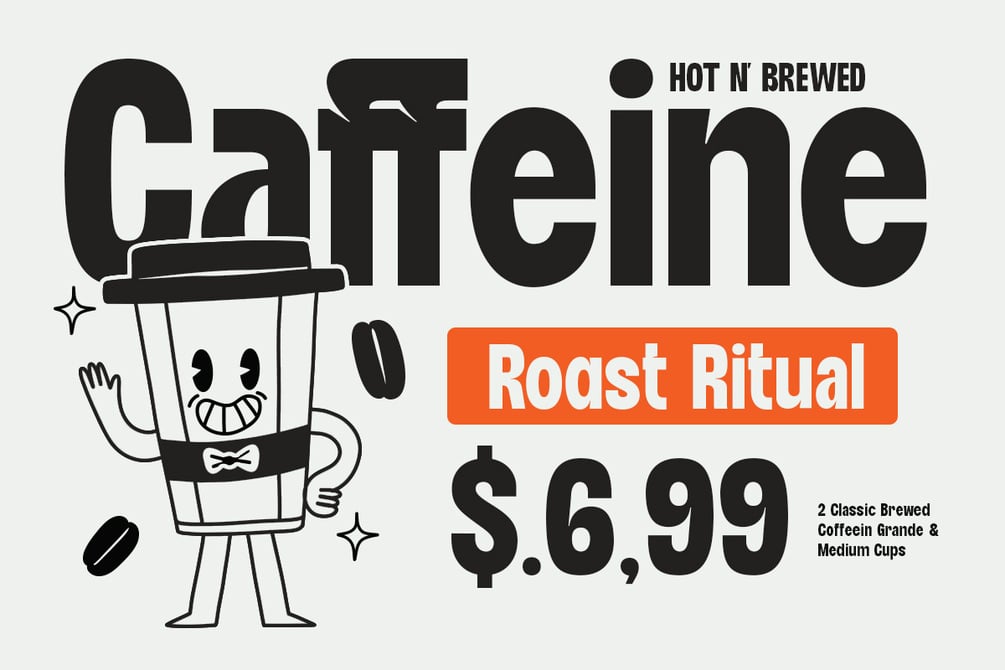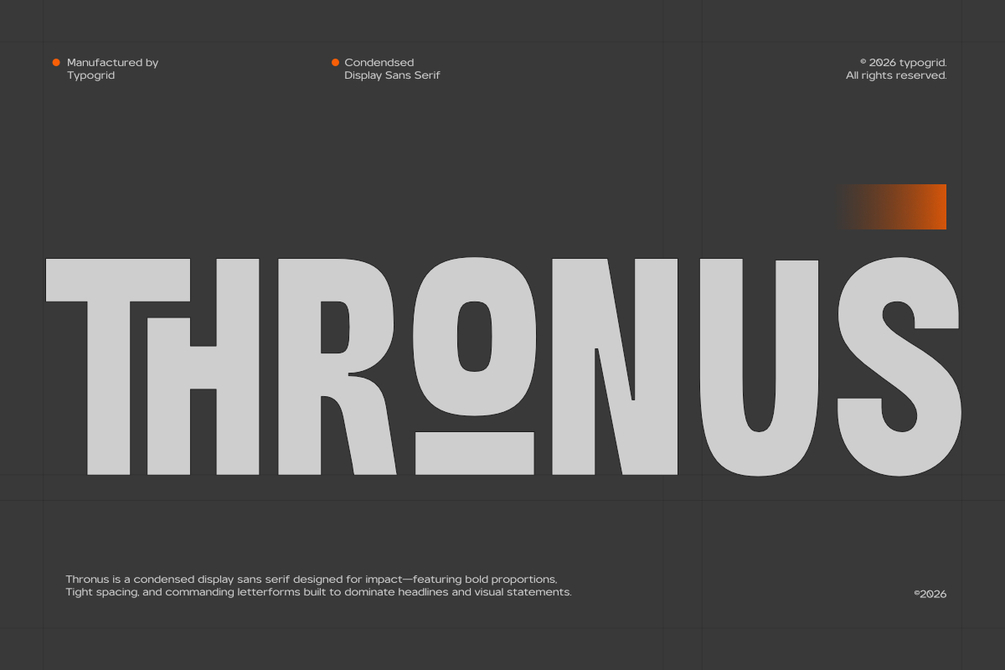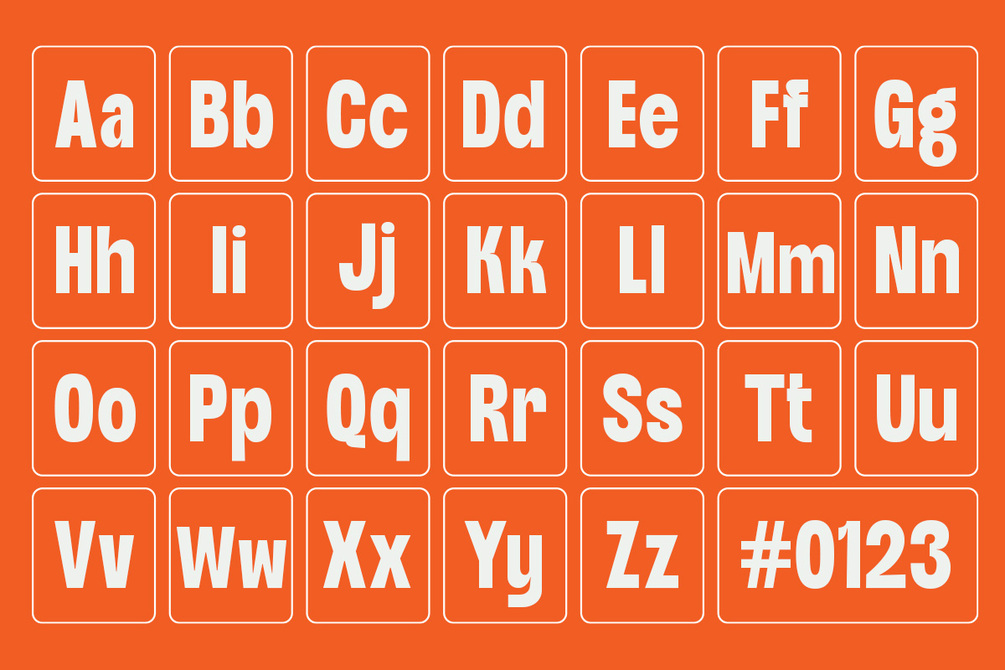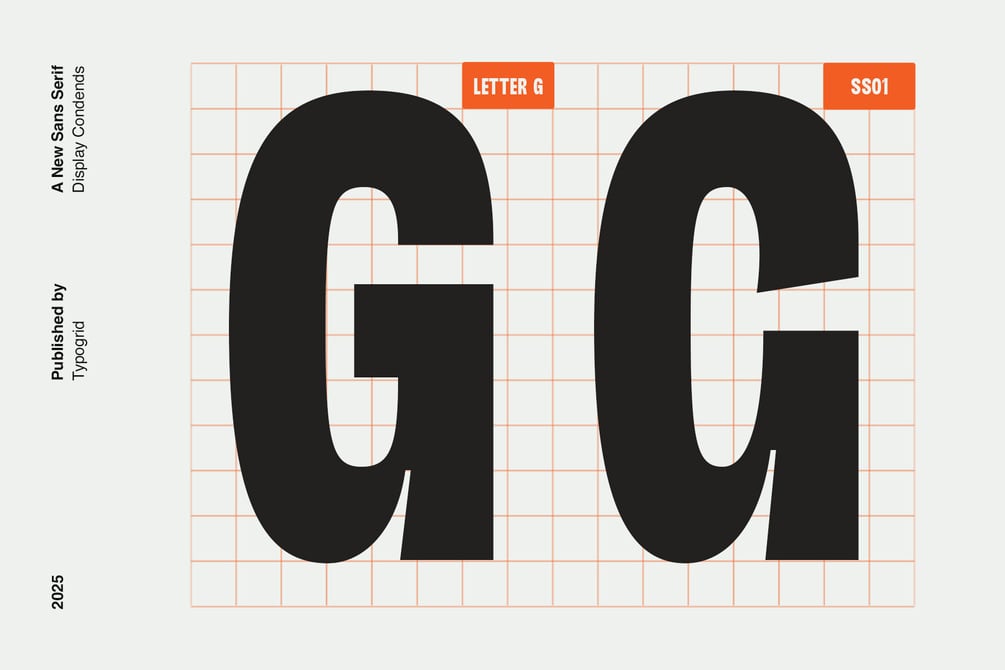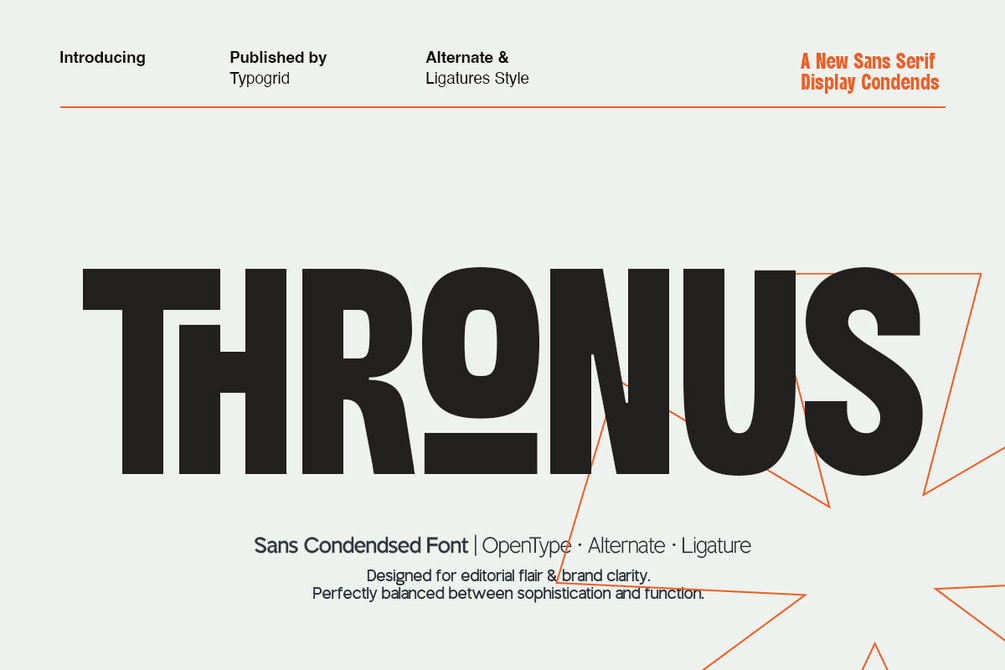
TG Thronus Sans Serif Condendsed
What if we told you that stability and style could coexist perfectly?
Meet TG Thronus — the groundbreaking sans serif display condensed font that's about to redefine your design vocabulary. Published by the innovative team at Typogrid, this isn't just another typeface addition to your collection.
Notice how the name itself tells a story. "Thronus" — evoking strength, elevation, and authority. Yet look at those dynamic geometric overlays dancing around the letterforms! This beautiful contradiction is exactly what makes this font so compelling.
Can you see the precision in every character? Each letter has been meticulously crafted to deliver maximum impact while maintaining that crucial readability factor. The condensed nature means you get more visual punch in less space — perfect for headlines that need to grab attention instantly.
But here's what makes TG Thronus truly special... It comes packed with alternate characters and ligature styles that give you the creative flexibility to make every project uniquely yours. Whether you're designing for bold advertising campaigns, modern magazine layouts, or cutting-edge digital interfaces, TG Thronus adapts to your vision.
Think about your current design challenges. How many times have you searched for a font that's both strong and sophisticated? Bold yet refined? Condensed but not cramped? That's the gap. TG Thronus fills.
Are you ready to ascend your typography game? Let’s explore how TG Thronus can transform your next project from ordinary to extraordinary.
Featured Features:
– Sans serif display font style
– Unique character alternatives & ligatures
– Ideal for large titles & brand identities
Alternate & Ligature